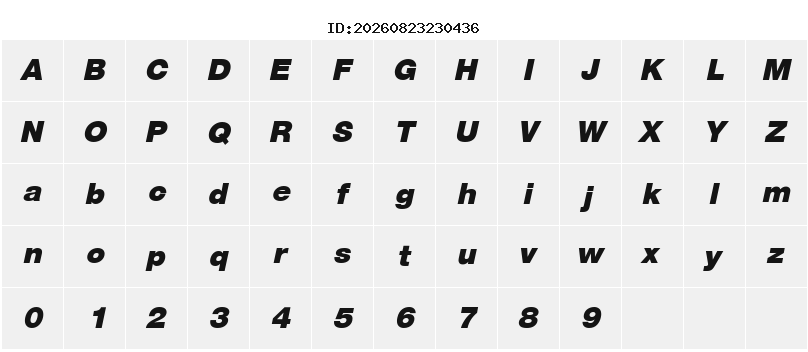
• Font Name: Sans Black
• Font Style: ITALIC
• Full Font Name: Sans Black ITALIC
About Sans Black.ttf
Sans Black.ttf is a modern, elegant sans-serif font designed for ultimate readability and visual harmony. Perfect for branding, headlines, web design, and print materials.